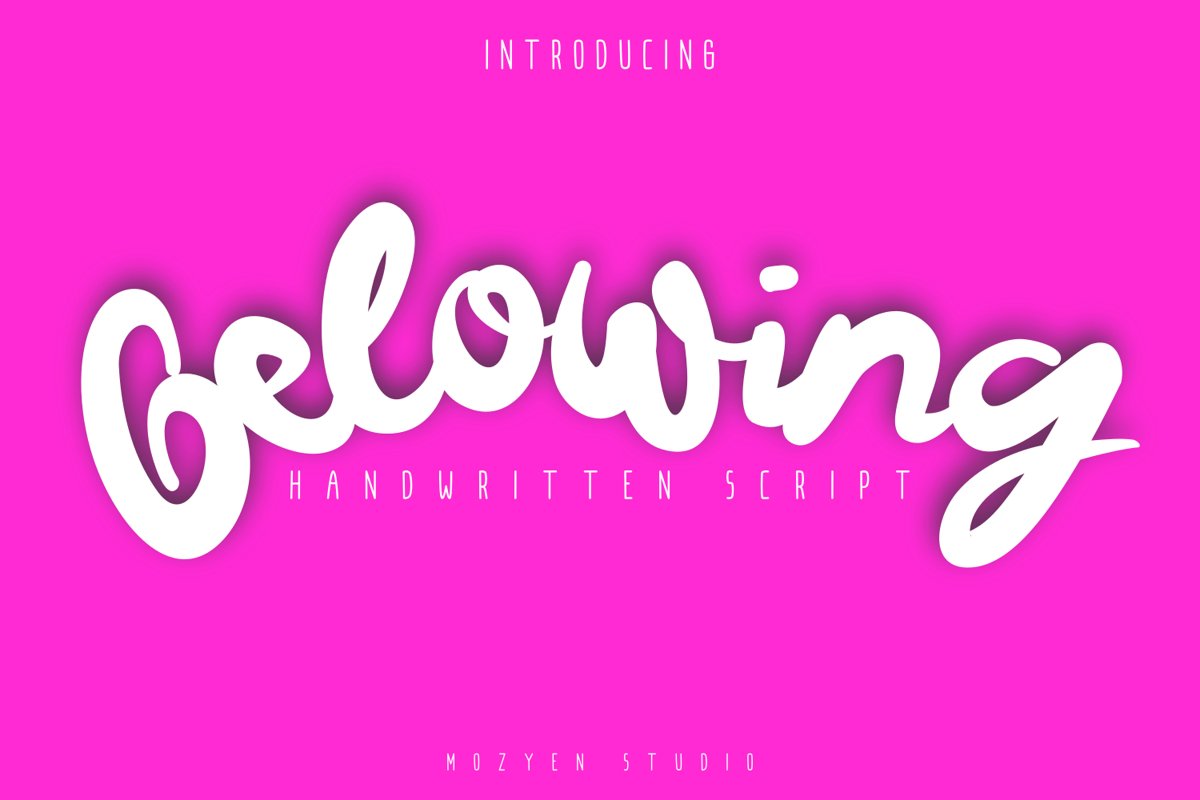
Gelowing
Happily born Daughter of the family Mozyen studio. She is the “Gelowing”
Script. “Gelowing”
Script can accompany your design so that it looks
attractive and extraordinary. “Gelowing”
Script, you can use in
various designs such as weddings, beautiful words, t-shirt designs,